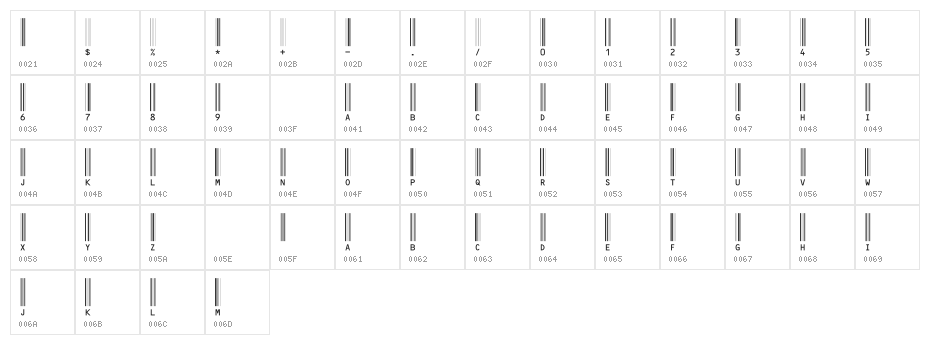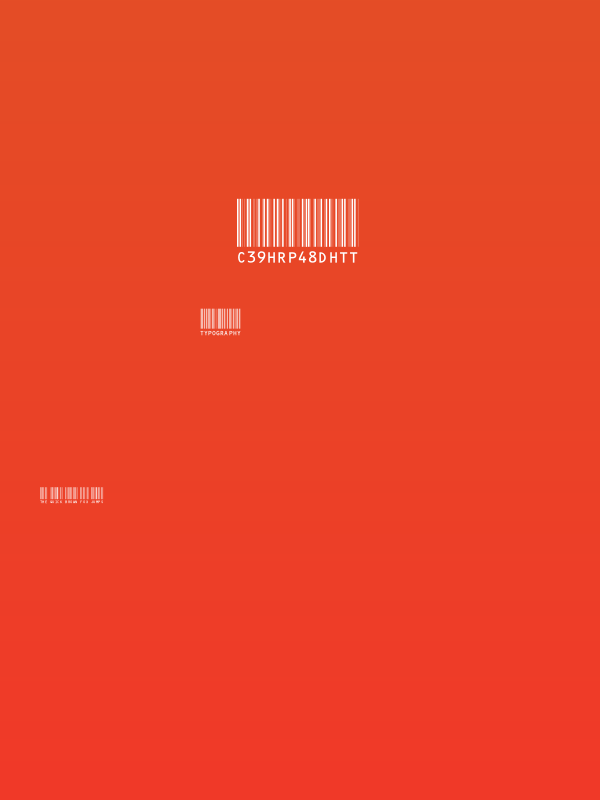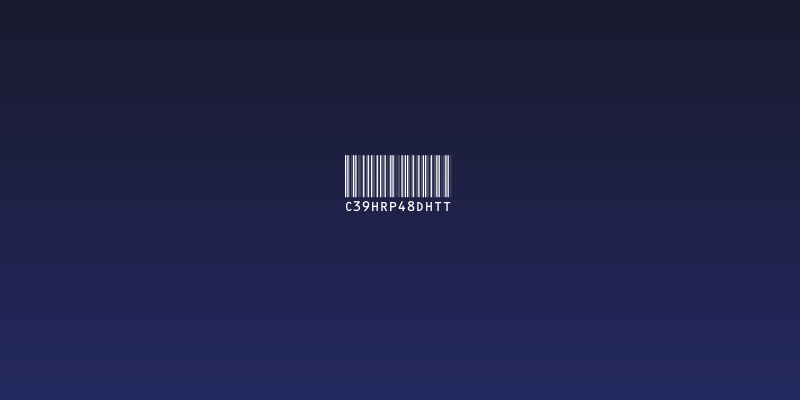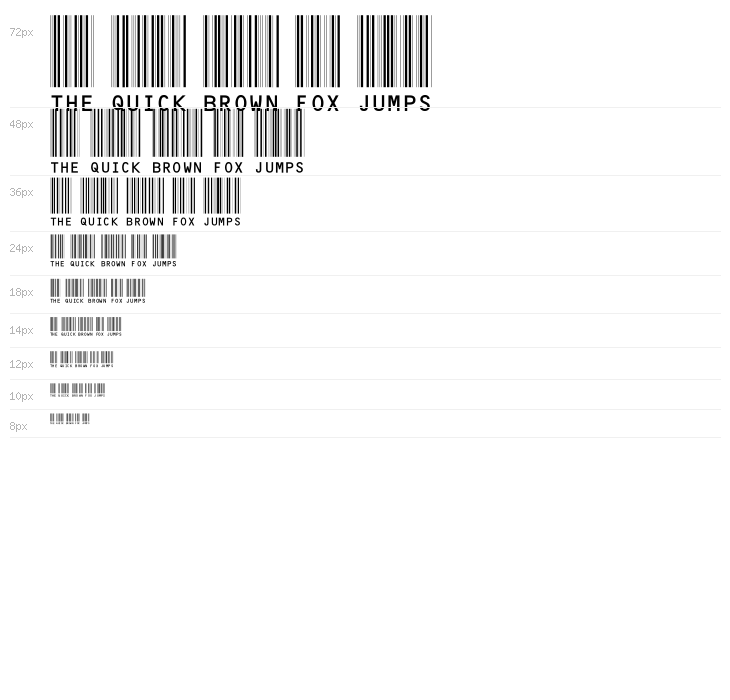
C39HrP48DhTt Font
C39HrP48DhTt Description
This is not a traditional font but rather a barcode representation, specifically Code 39. Code 39 is a widely used barcode symbology that encodes alphanumeric characters and a few special symbols. It is characterized by its use of bars and spaces of varying widths to represent data. Each character is represented by a pattern of nine elements, five bars, and four spaces, with three of the nine elements being wide and the remaining six being narrow. This barcode type is often used in logistics, inventory, and tracking applications due to its simplicity and ability to encode both letters and numbers.
| Overall Style | Technical |
| Use Case | Barcodes, Inventory systems, Asset tracking |
| Proposed Projects | Ideal for inventory management systems, asset tracking, and logistics applications. |